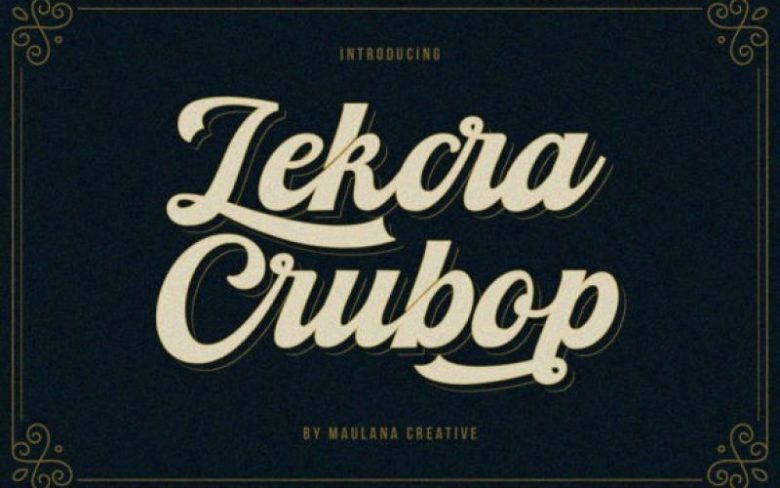
Lekcra Crubop Script Font
Lekcra Crubop is an incredibly distinct handwritten font, defined by a vintage touch. Fall in love with its incredibly versatile style and use it to create gorgeous wedding invitations, beautiful stationary art, eye-catching social media posts, and much more!